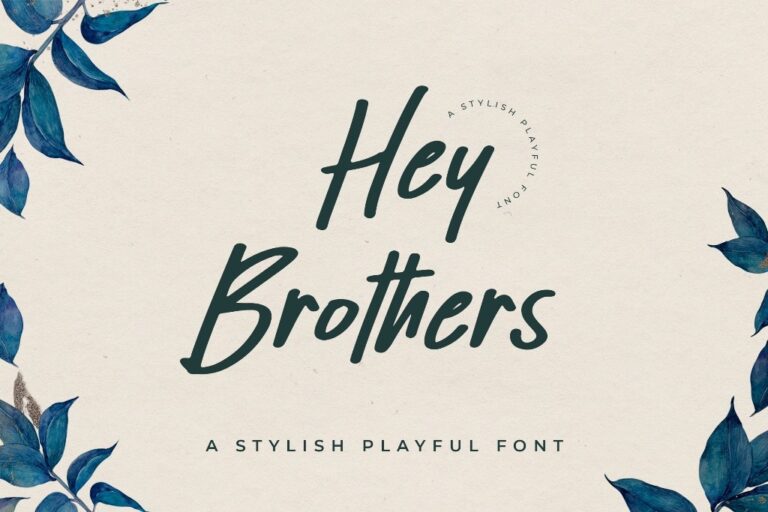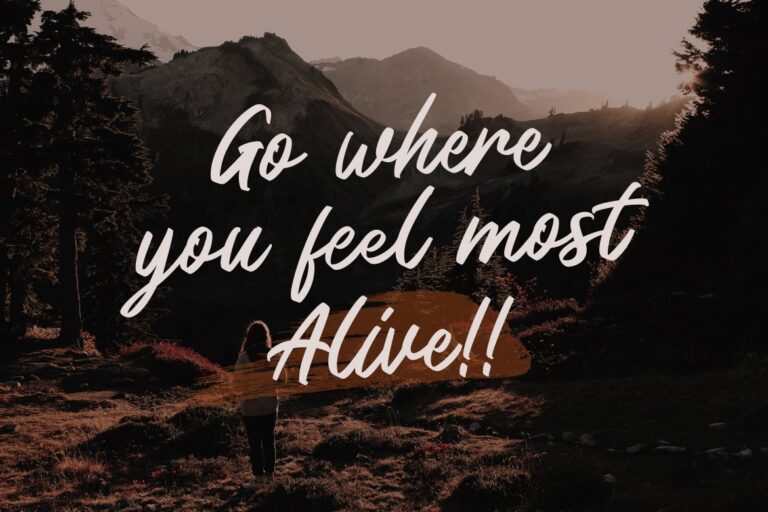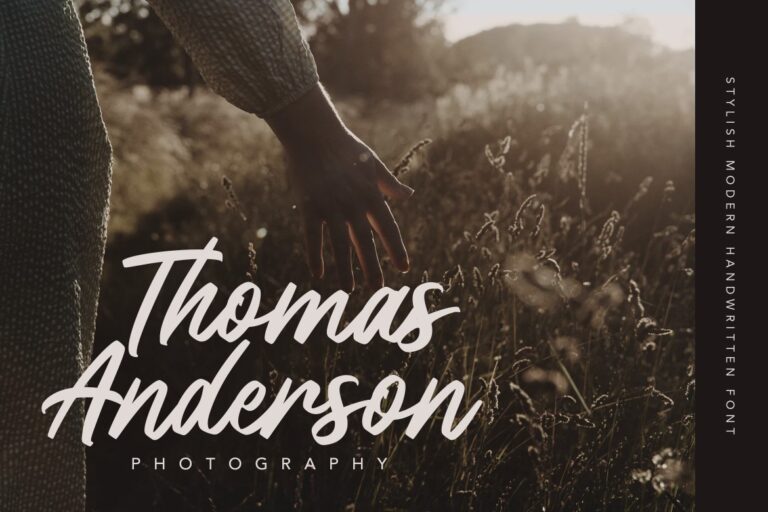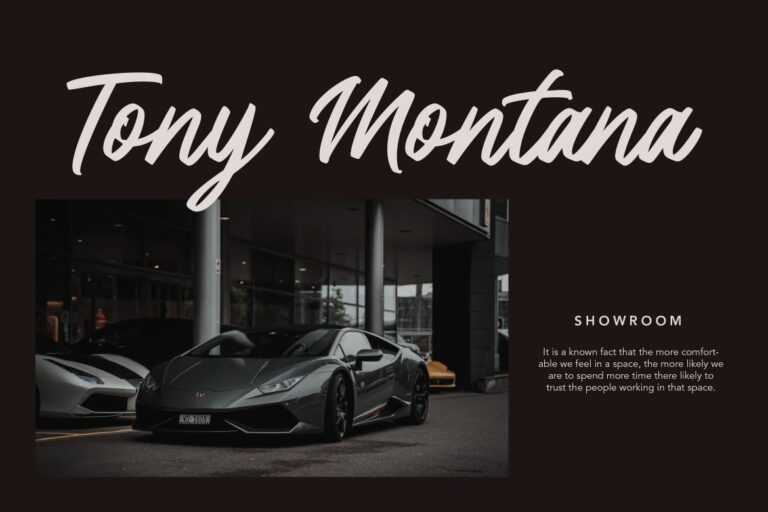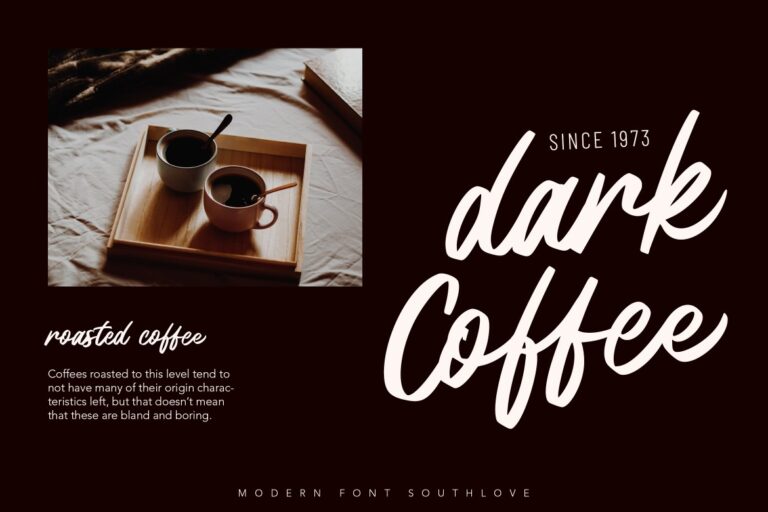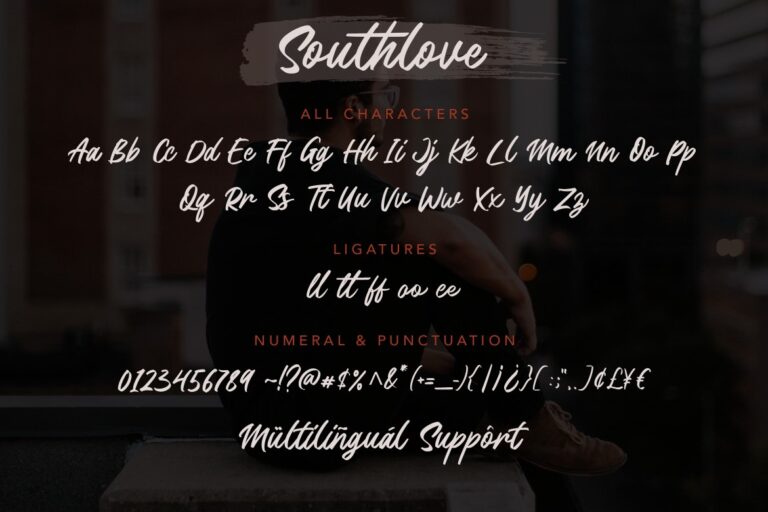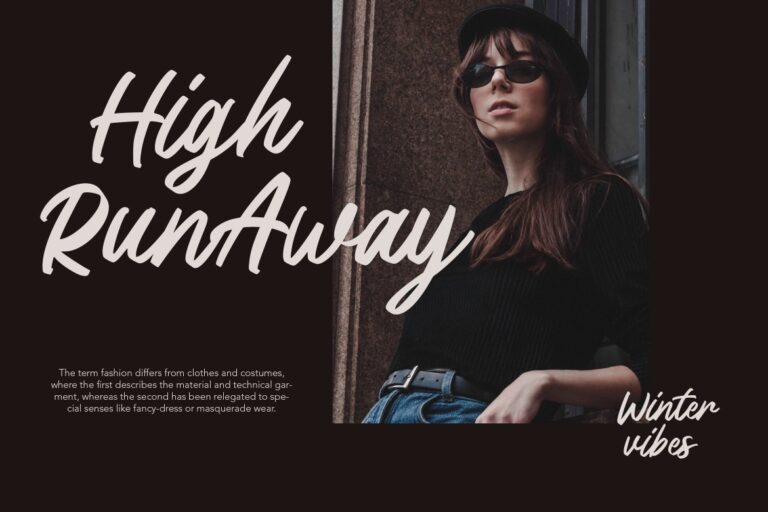
Southlove
Southlove is modern bold script that perfect for any modern design. You can use it for your brand, product, music,clothing, apparel, or advertisement